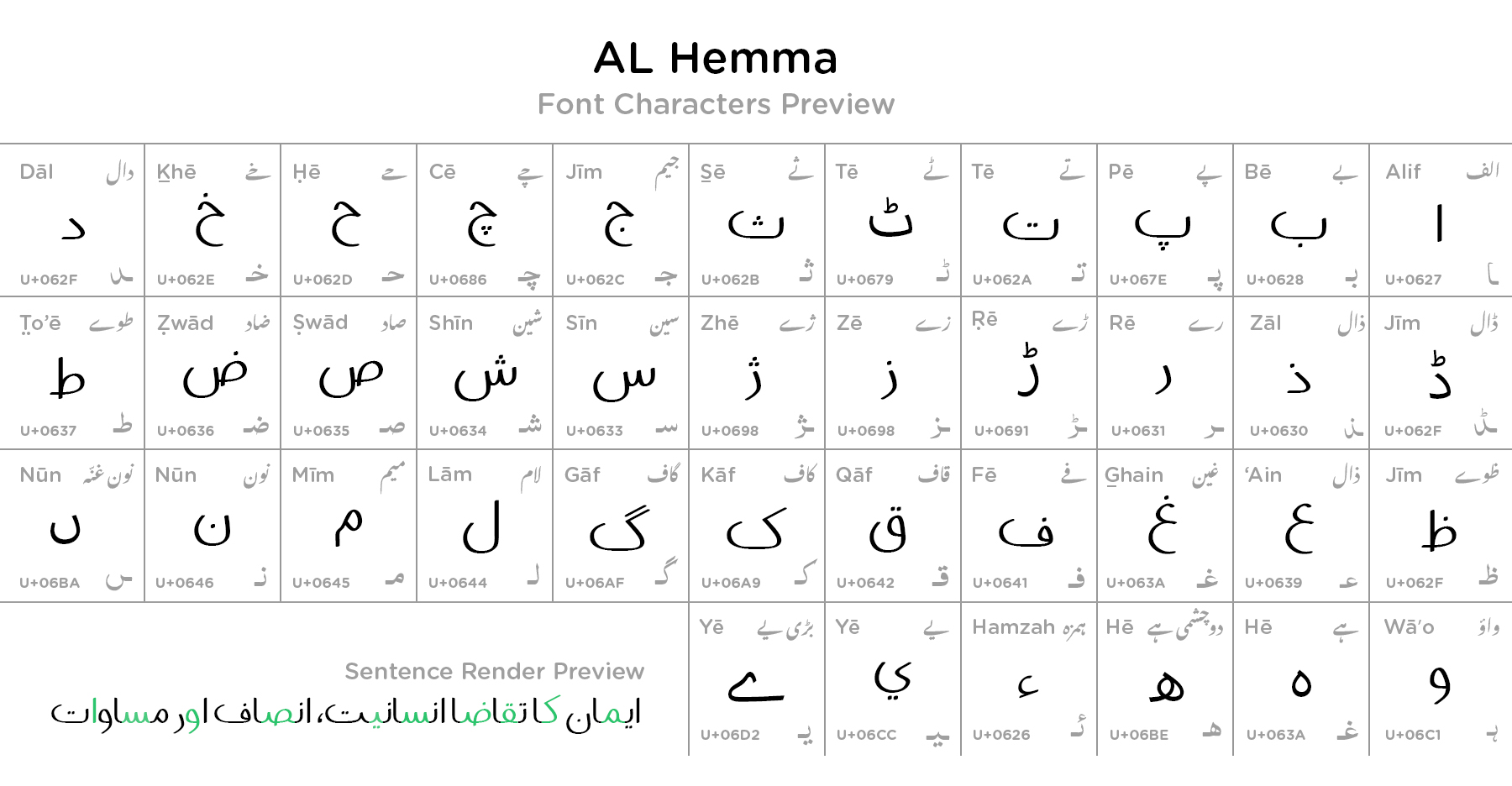
AL Hemma is a delicate and handwritten Arabic font characterized by its thin lines and clean, minimalistic appearance. While not strictly calligraphic, it adheres well to the rules of Arabic scripting, offering a natural outlook with subtle irregularities in its letters. With 218 glyphs, the typeface maintains a consistent thickness with delicate strokes, ensuring high legibility even at smaller sizes. The uneven spacing between letters creates a natural effect, further enhancing its appeal. Despite offering only one weight, it’s clear outlook and easy-to-understand appearance make it suitable for both short and long texts.
Released with compatibility for Basic Latin, Latin-1 Supplement, Arabic, and various other Unicode blocks, the font offers a more fulfilling design experience.